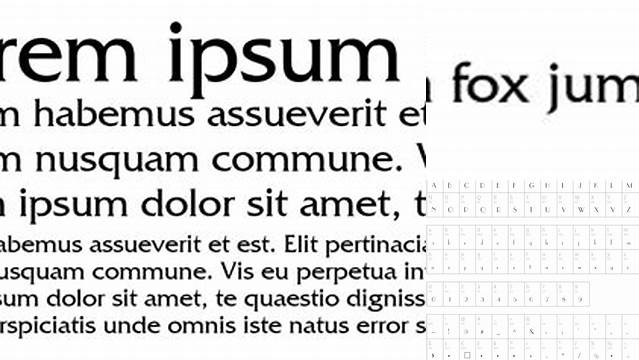
France Regular Font: Free Download Guide
Are you on the hunt for that perfect, sophisticated typeface to elevate your design projects? Look no further! The France Regular Font could be exactly what you need. This comprehensive guide dives into everything you need to know about this elegant font, including where to find it for free download and how to use it effectively in your designs. Whether you're a seasoned designer or just starting out, understanding the nuances of typography can significantly enhance your work. So, let's explore the world of France Regular Font and unlock its potential to transform your creative endeavors.
What is France Regular Font?
France Regular Font is often characterized by its clean lines, balanced letterforms, and overall readability. It usually exudes a sense of modern elegance, making it suitable for a wide range of applications. The specific characteristics can vary depending on the designer and the intended use of the font. Generally, regular fonts strike a balance between being too bold or too light, ensuring they are easy on the eyes in various text sizes and formats. You might find France Regular Font used in branding materials, websites, and even print publications. The versatility stems from its ability to convey professionalism and sophistication without being overly distracting. When choosing a font like France Regular Font, consider the overall tone and message you want to communicate. A well-chosen font can reinforce your brand identity and make your content more engaging for your audience.
The appeal of France Regular Font lies in its versatility and timelessness. Unlike trendy fonts that quickly fall out of favor, a well-designed regular font remains relevant and useful across different eras and design styles. This makes it a valuable asset for any designer or business looking to establish a consistent and enduring brand identity. Moreover, the clarity of France Regular Font ensures that your message is easily understood, regardless of the medium. In the digital age, where attention spans are short, readability is paramount. A font that is both visually appealing and easy to read can significantly improve user engagement and retention. Therefore, investing in a high-quality regular font is an investment in the effectiveness of your communication.
Think about the different scenarios where you might use France Regular Font. Imagine creating a sleek and modern website for a tech startup. The clean lines of the font would complement the company's innovative image. Or perhaps you're designing a brochure for a luxury hotel. The elegance of the font would convey a sense of sophistication and exclusivity. In both cases, the font plays a crucial role in shaping the overall perception of the brand. By carefully considering the context and purpose of your design, you can choose a font that perfectly aligns with your goals. Remember, typography is not just about aesthetics; it's about communication and conveying the right message to your audience. So, take the time to explore different options and find the France Regular Font that best suits your needs.
How to Use France Regular Font in Your Designs
Experiment with different font weights and styles to create visual hierarchy in your designs. For example, you might use the regular weight for body text and a bold weight for headings. This will help guide the reader's eye and make your content more engaging. You can also use italics to emphasize certain words or phrases. However, be careful not to overuse italics, as this can make your text look cluttered and unprofessional. When choosing a font color, consider the overall color scheme of your design. A high-contrast color combination, such as black text on a white background, will improve readability. Avoid using colors that are too similar, as this can make your text difficult to read.
Pay attention to kerning and tracking to fine-tune the appearance of your text. Kerning refers to the spacing between individual letters, while tracking refers to the overall spacing between all the letters in a word or phrase. Adjusting these settings can improve the legibility and aesthetic appeal of your text. Most design software allows you to adjust kerning and tracking manually. You can also use automatic kerning and tracking features, but be sure to review the results carefully to ensure that they look good. Finally, remember to test your designs on different devices and screen sizes to ensure that your text looks good everywhere. This is especially important for websites, as they are viewed on a wide range of devices.
In conclusion, finding and effectively using France Regular Font can significantly enhance your design projects. By understanding its characteristics, knowing where to find free downloads, and following best practices for font usage, you can create visually appealing and engaging designs that communicate your message effectively. Remember to always prioritize readability, pay attention to the overall aesthetic, and test your designs on different devices. With these tips in mind, you'll be well on your way to mastering the art of typography and creating stunning designs that stand out from the crowd. Happy designing, guys! I hope this helps you find and use the perfect font for your projects! This knowledge ensures that you can confidently select and implement fonts that elevate your work and resonate with your target audience. So go forth and create designs that are both beautiful and effective!